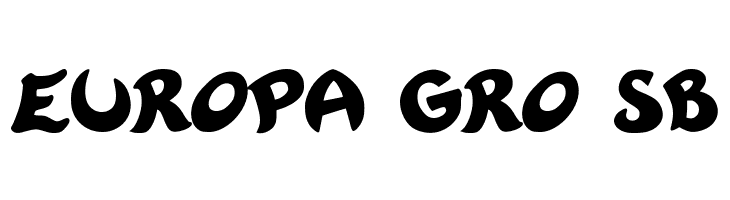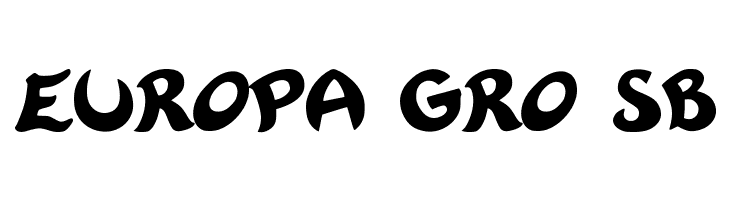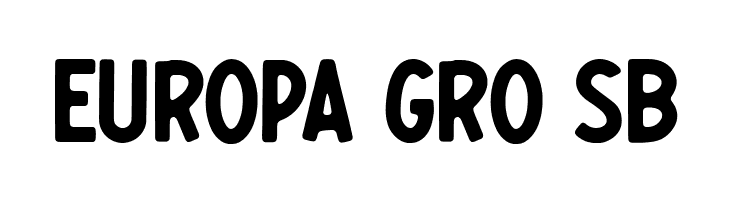
( Fonts by Gassstype )
A playful, hand-drawn style font with bold, irregular letterforms.
( Fonts by Gassstype )
A playful, hand-drawn font with bold, irregular strokes and a casual style.
( Fonts by twinletter )
A bold, playful font with rounded edges and a chunky appearance.
( Fonts by Jeff Levine. FREEWARE )
A playful, train-themed decorative font with bold, uniform characters.
( Fonts by BlackFridayFont FMF )
A playful, bubble-like font with a spooky, cartoonish style.
( Fonts by Mr.Soon Design )
A playful, hand-drawn font with rounded, bold characters.
A playful, rounded font with whimsical, bubbly characters.
A playful, italic font with smooth curves and whimsical details.
( Fonts by Onne Hermawan )
A playful, bold font with rounded, bubble-like characters and a whimsical style.
( Fonts by GGBotNet )
A playful, bold outline font with a cartoonish, hand-drawn style.
( Fonts by GGBotNet )
A bold, playful font with rounded edges and a bubbly, retro style.
( Fonts by GGBotNet )
A bold, playful, and italicized font with rounded strokes and close spacing.
( Fonts by GGBotNet )
A bold, outlined, and slightly italic font with a playful, hand-drawn style.
( Fonts by Creavibes Design )
A playful, bold font with rounded, thick strokes and a hand-drawn feel.
( Fonts by Rantau Type )
A playful, bold, and rounded font with a hand-drawn aesthetic.
( Fonts by Yumna Family )
A playful, bold font with rounded, smooth characters and a whimsical style.
( Fonts by Scratchones )
A playful, hand-drawn style font with bold, rounded characters.
( Fonts by Regulerstudio )
A playful, handwritten font with bold, rounded characters.
( Fonts by Rantau Type )
A bold, playful font with rounded edges and a whimsical style.
( Fonts by Hanoded )
A bold, playful font with a hand-drawn, textured appearance and cloud motifs.
( Fonts by BrandSemut )
A playful, whimsical font with exaggerated serifs and a hand-drawn look.
( Fonts by Pandan Wangi )
A bold, playful handwritten font with a casual and friendly style.
( Fonts by Illushvara )
A playful and whimsical font with dynamic strokes and lively characters.
( Fonts by Kurnia Setyadi )
A playful, bold font with rounded, bubbly characters ideal for fun designs.
( Fonts by Gassstype )
A playful, bold, hand-drawn style font with a casual and friendly vibe.
( Fonts by Gassstype )
( Fonts by madeDeduk )
A playful, hand-drawn font with a bold and whimsical style.
( Fonts by Gassstype )
Bold, angular font with a dynamic, comic book style.
( Fonts by Gassstype )
A bold, dynamic font with slanted characters and a modern style.
A playful, bold handwritten font with a lively and energetic style.
( Fonts by Almarkhatype )
A playful and bold font with whimsical, rounded elements.
( Fonts by Almarkhatype )
A playful and whimsical font with bold, rounded characters and unique curves.
( Fonts by 7NTypes )
A playful, hand-drawn font with rounded edges and a whimsical style.
( Fonts by 7NTypes )
A playful font with paw print accents, perfect for whimsical and animal-themed designs.
( Fonts by Airotype Design )
A playful, hand-drawn font with decorative embellishments and a whimsical style.